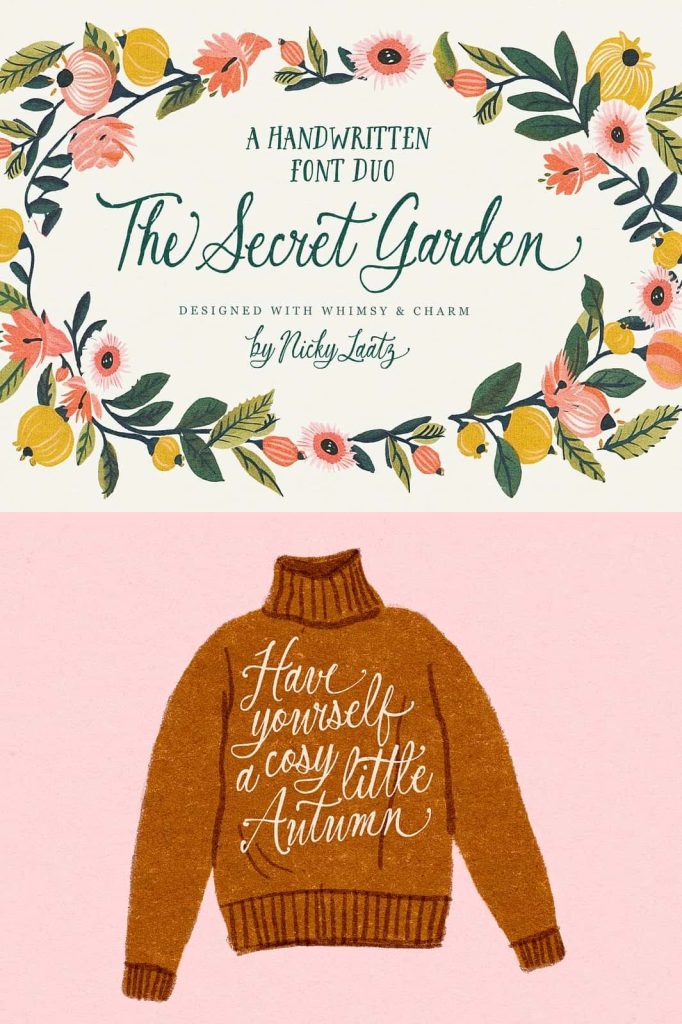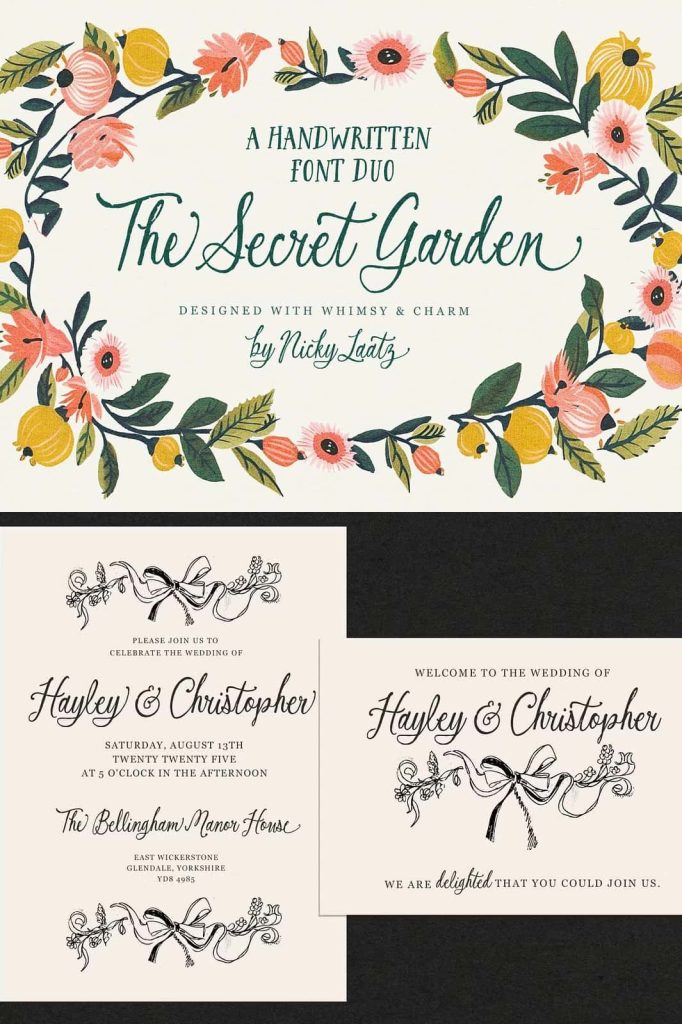
Secret Garden Font Duo: Whimsical Elegance with Timeless Charm
Secret Garden Font Duo is a beautifully crafted font pairing that brings together playful charm and classic elegance. Designed to inspire creativity, this duo blends whimsical elements with refined details, making it a versatile choice for a wide range of design projects. It captures the feeling of a magical garden, where delicate beauty and artistic expression come together in perfect harmony.
This font duo allows you to create designs that feel both imaginative and sophisticated. Its balanced combination of styles helps you build compositions that stand out while maintaining a sense of grace. Whether you work on personal projects or professional designs, Secret Garden Font Duo gives you the tools to express creativity with confidence.
A Unique Blend of Whimsy and Old-World Elegance
Secret Garden Font Duo stands out because it combines playful character with timeless design influences. The whimsical elements bring a sense of joy and creativity, while the elegant details reflect classic typography traditions. This fusion creates a font pairing that feels fresh yet rooted in tradition.
The design draws inspiration from nature, storytelling, and vintage aesthetics. Each letter feels thoughtfully crafted, allowing your text to flow naturally while maintaining visual interest. This makes it ideal for projects that aim to evoke emotion and beauty.
Perfect Harmony for Creative Typography
This font duo offers two complementary styles that work seamlessly together. You can use one font for expressive headlines and the other for supporting text, creating a balanced and visually appealing layout. This flexibility allows you to experiment with different compositions and achieve professional results.
The pairing enhances readability while adding personality to your designs. It allows you to highlight key messages without overwhelming the overall composition. This makes Secret Garden Font Duo a powerful tool for designers who value both creativity and clarity.
Key Features of Secret Garden Font Duo
- Whimsical and playful design elements
- Elegant details inspired by classic typography
- Perfectly paired fonts for versatile use
- Balanced style for both decorative and readable text
Ideal for Artistic and Elegant Design Projects
Secret Garden Font Duo works beautifully across a variety of creative applications. Its charming and refined style makes it perfect for designs that require a soft and artistic touch. You can use it to create visuals that feel warm, inviting, and memorable.
This font duo performs especially well in projects that celebrate creativity and storytelling. It helps you craft designs that connect with audiences on an emotional level, making your work more engaging and impactful.
Best Use Cases for Secret Garden Font Duo
- Greeting cards and stationery design
- Wedding invitations and event invites
- Rustic labels and packaging
- Typography-based artwork and illustrations
- Branding for handmade or lifestyle products
Enhance Your Branding with a Personal Touch
Secret Garden Font Duo helps you create branding that feels authentic and expressive. Its handcrafted appearance adds a personal touch that resonates with audiences. This makes it an excellent choice for brands that want to appear approachable and creative.
By using this font duo, you can build a visual identity that reflects care and attention to detail. It works particularly well for businesses in the creative, lifestyle, and artisanal industries.
Seamless Integration with Illustrations and Designs
One of the strengths of Secret Garden Font Duo is its ability to blend effortlessly with illustrated elements. Its organic shapes and flowing forms complement hand-drawn artwork and decorative graphics. This makes it ideal for projects that combine typography with illustration.
The font adapts naturally to different styles, allowing you to create cohesive designs. Whether you work on digital artwork or printed materials, it enhances the overall composition without overpowering other elements.
Improve Your Creative Workflow
Secret Garden Font Duo simplifies the design process by providing a ready-made pairing that works harmoniously. Instead of searching for complementary fonts, you can rely on this duo to deliver balanced and attractive results.
The font encourages experimentation. You can explore different layouts, combine styles, and refine your compositions with ease. This flexibility helps you create unique designs while maintaining consistency.
Key Advantages of Secret Garden Font Duo
- Versatile font pairing for multiple design needs
- Whimsical and elegant aesthetic
- Perfect for both print and digital projects
- Enhances storytelling through typography
- Easy to combine with illustrations and graphics
Conclusion
Secret Garden Font Duo is more than just a set of fonts; it is a creative solution that brings charm and elegance into your work. Its combination of playful whimsy and timeless design makes it an excellent choice for designers who want to create meaningful and visually appealing projects. By incorporating Secret Garden Font Duo into your designs, you can produce compositions that feel magical, refined, and truly unforgettable.